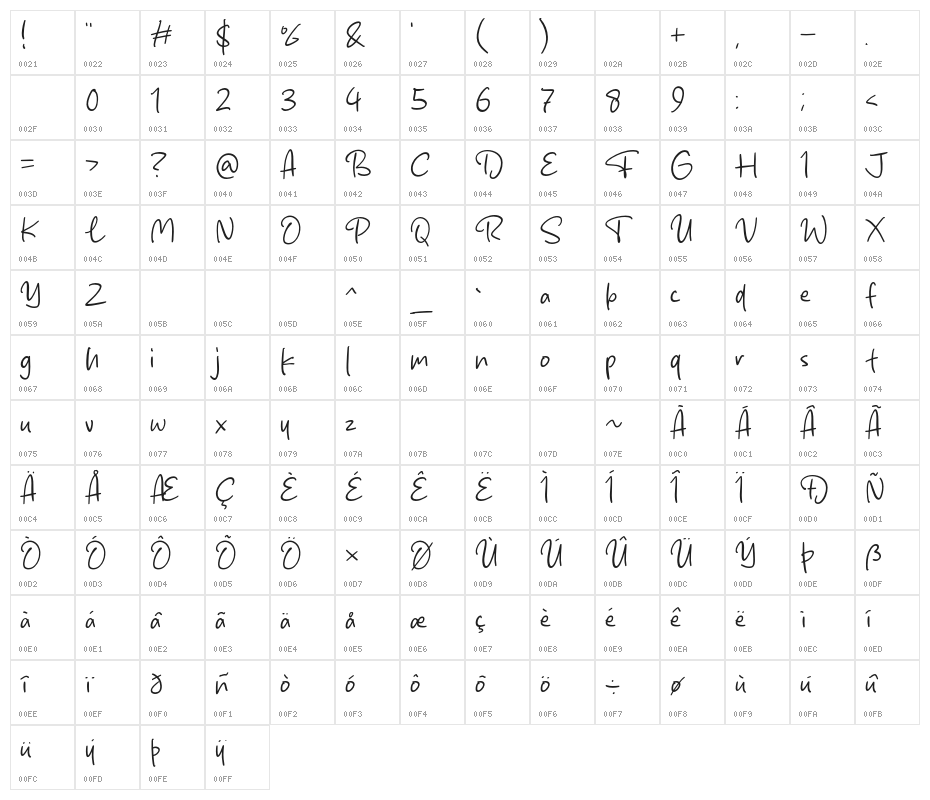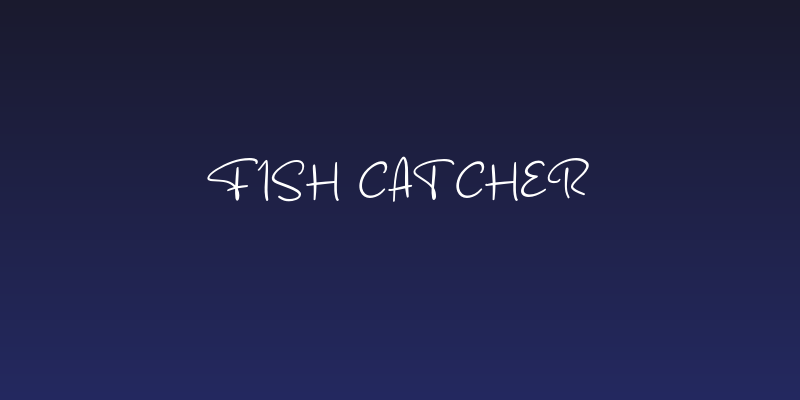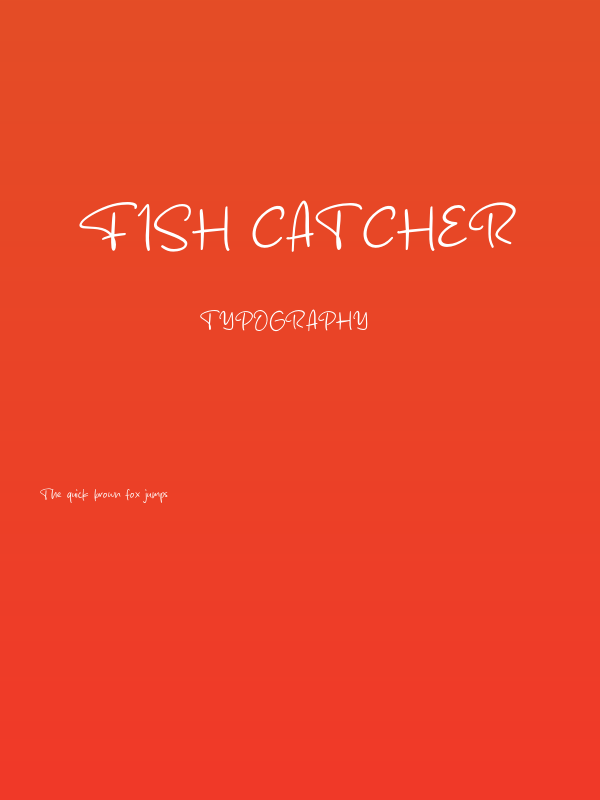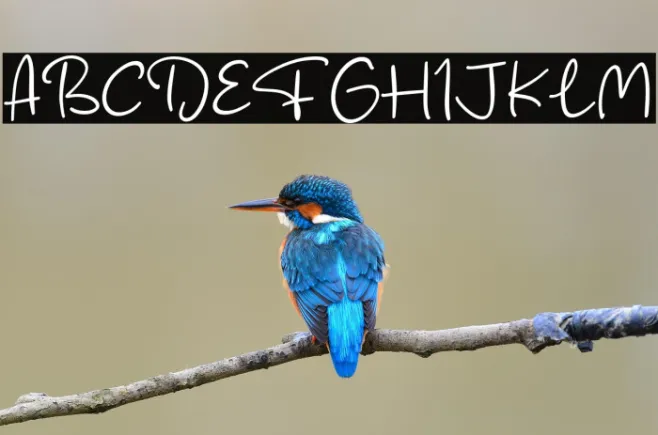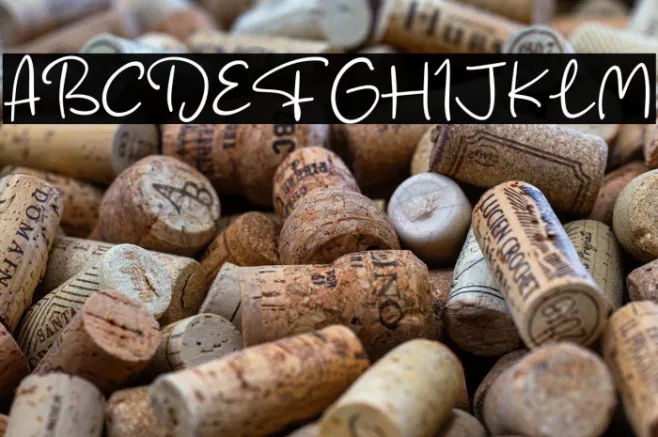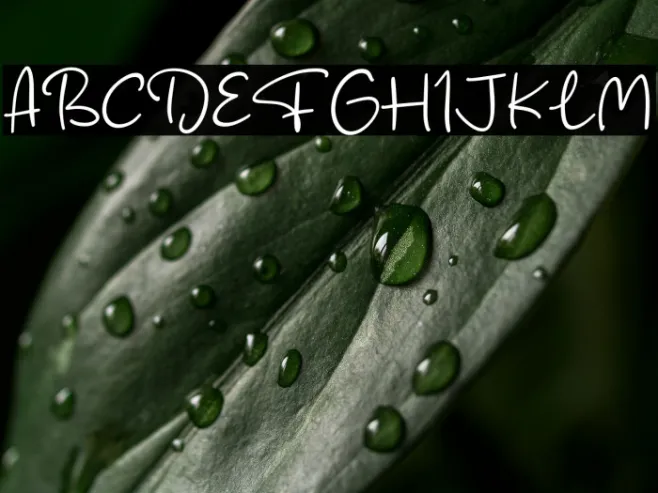
Fish Catcher Font
Fish Catcher Description
This font features a playful and casual handwritten style, characterized by its fluid and organic strokes. The letters are slightly tilted, giving a dynamic and lively appearance. The uppercase and lowercase letters maintain a consistent style, with rounded edges and a smooth flow. The numerals and special characters complement the overall design, maintaining the same casual and approachable feel. This font exudes a sense of friendliness and informality, making it suitable for projects that aim to convey warmth and approachability.
| Use Case | Logos, Headlines, Informal text |
| Proposed Projects | Ideal for greeting cards, personal branding, casual invitations, and social media graphics. |